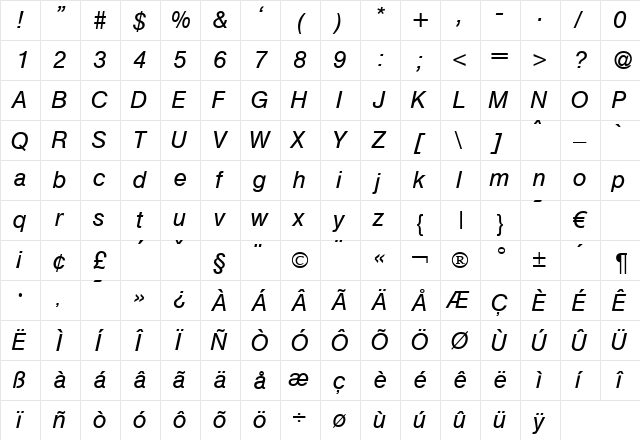
Helmet Italic
Design Context for Helmet Typeface
Helmet offers clean, dependable letterforms without strong stylistic allegiance, making it a practical choice for designers who need flexibility. Its italic angle brings a sense of urgency and motion to the letterforms.
Pro Tip: Use Helmet for emphasis, pull quotes, and subheadings where its slanted energy can add rhythm to the layout.